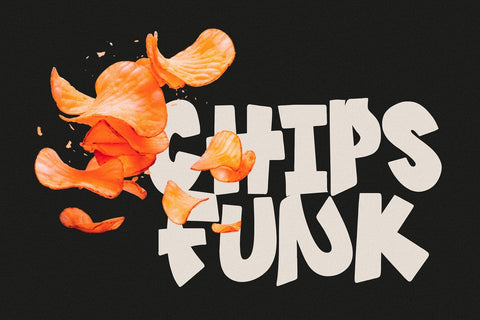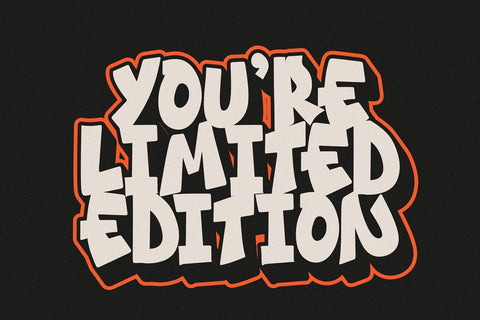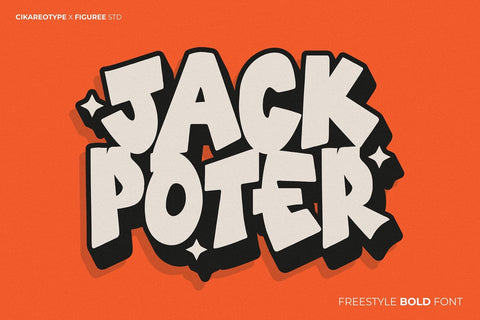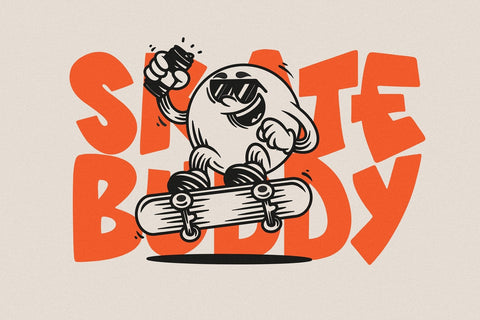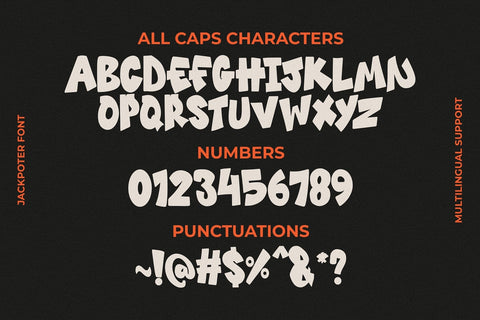
Jackpoter - Freestyle Bold Font
Jackpoter is a best-selling freestyle bold font that brings an energetic and dynamic flair to any design. This font's robust and playful style makes it perfect for projects that demand a powerful and eye-catching visual presence.
Elevate your designs with Jackpoter, the freestyle bold font that combines robust expression with dynamic charm. A best-selling choice for creatives, Jackpoter is your go-to font for adding boldness, creativity, and a striking visual impact to any project.